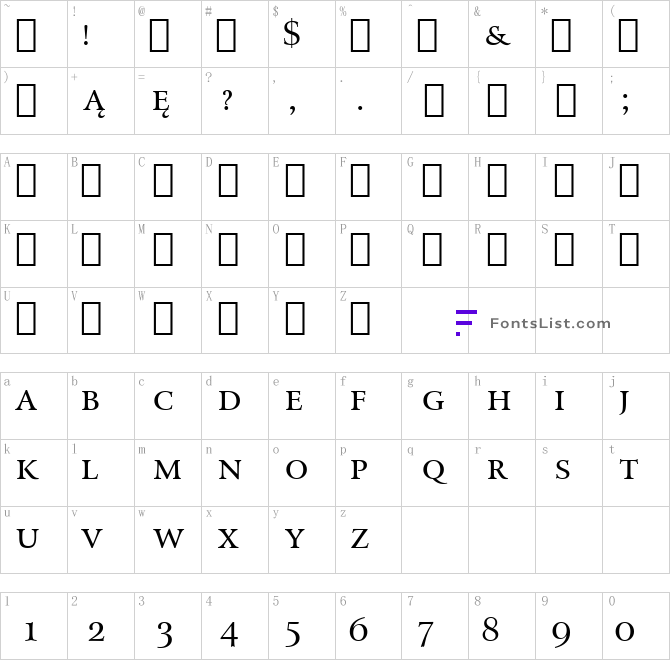
- Font Name:Arrus SmCap BT
- Subfamily:Small Cap
- Subfamily:Bitstream Arrus Small Cap, Lapidary 721
- Full Name:Arrus SmCap BT Small Cap
Arrus-SmCap-BT-Small-Cap.ttf is a very beautiful artistic font, Arrus-SmCap-BT-Small-Cap.ttf is widely used in the design and printing of various books and pictures,Arrus-SmCap-BT-Small-Cap.ttf has a strong visual impact,Arrus-SmCap-BT-Small-Cap.ttf is a commonly used font in newspapers, magazines and books, and is used in posters, e-commerce Poster design, store design, logo design, font design and other fields.Arrus-SmCap-BT-Small-Cap.